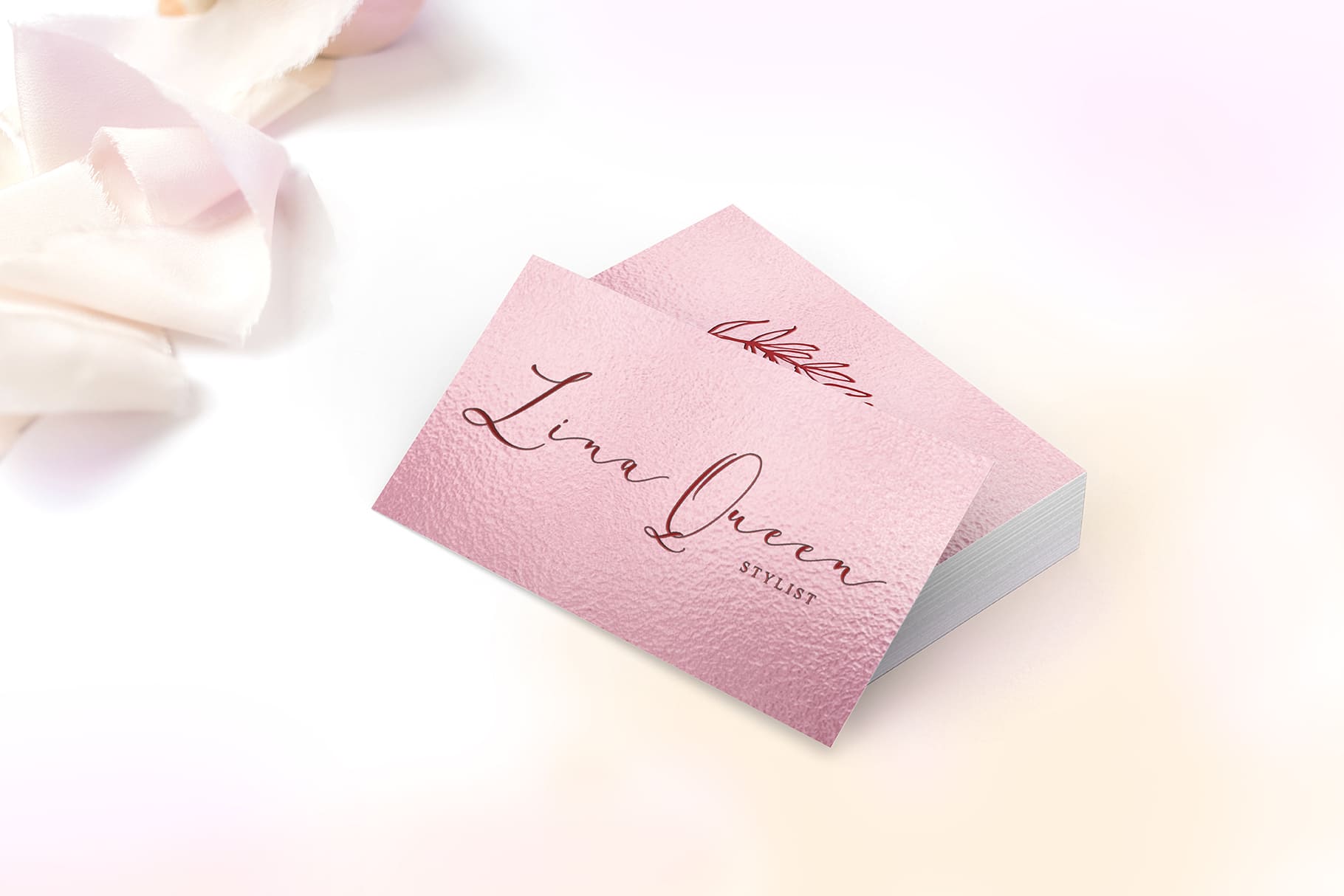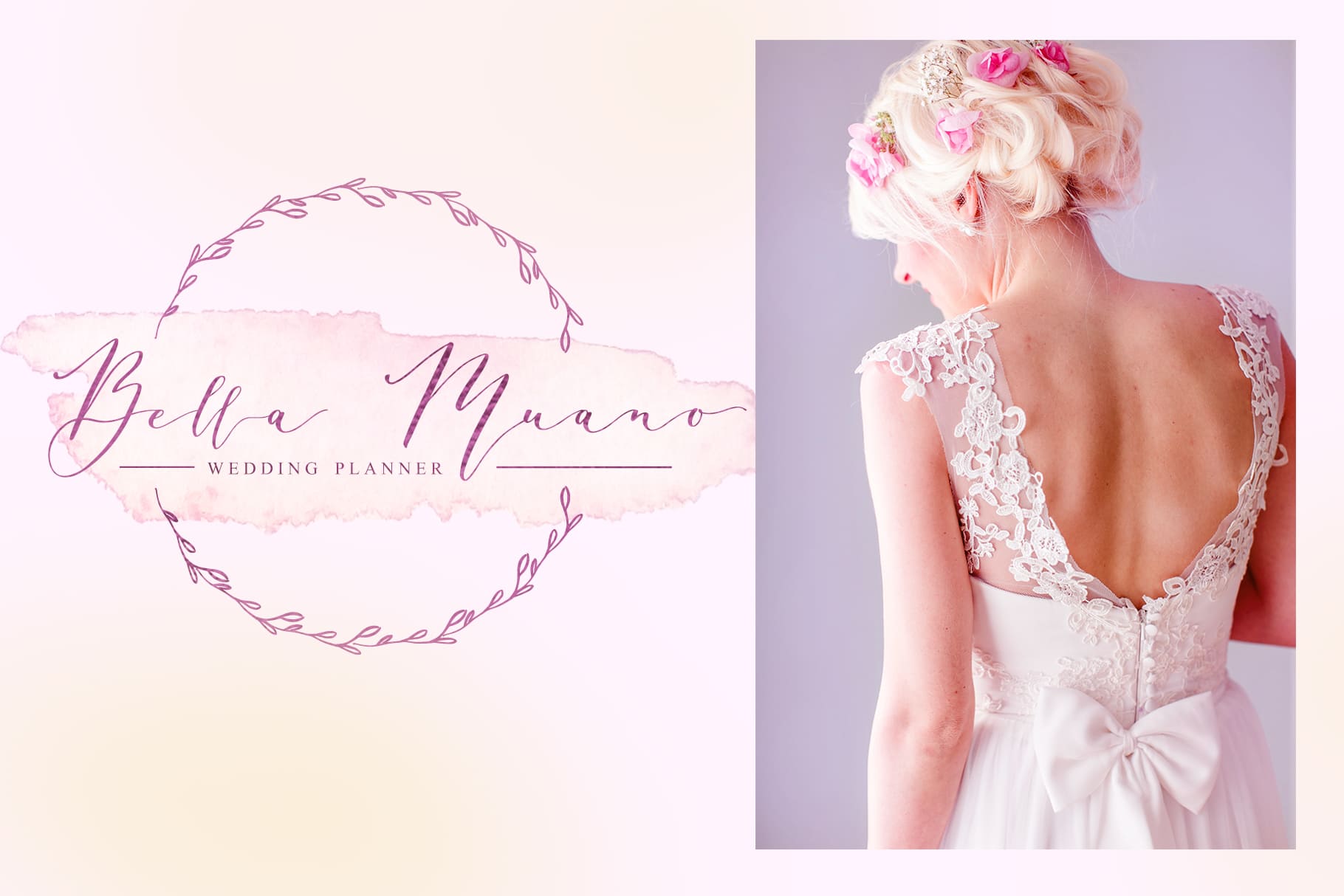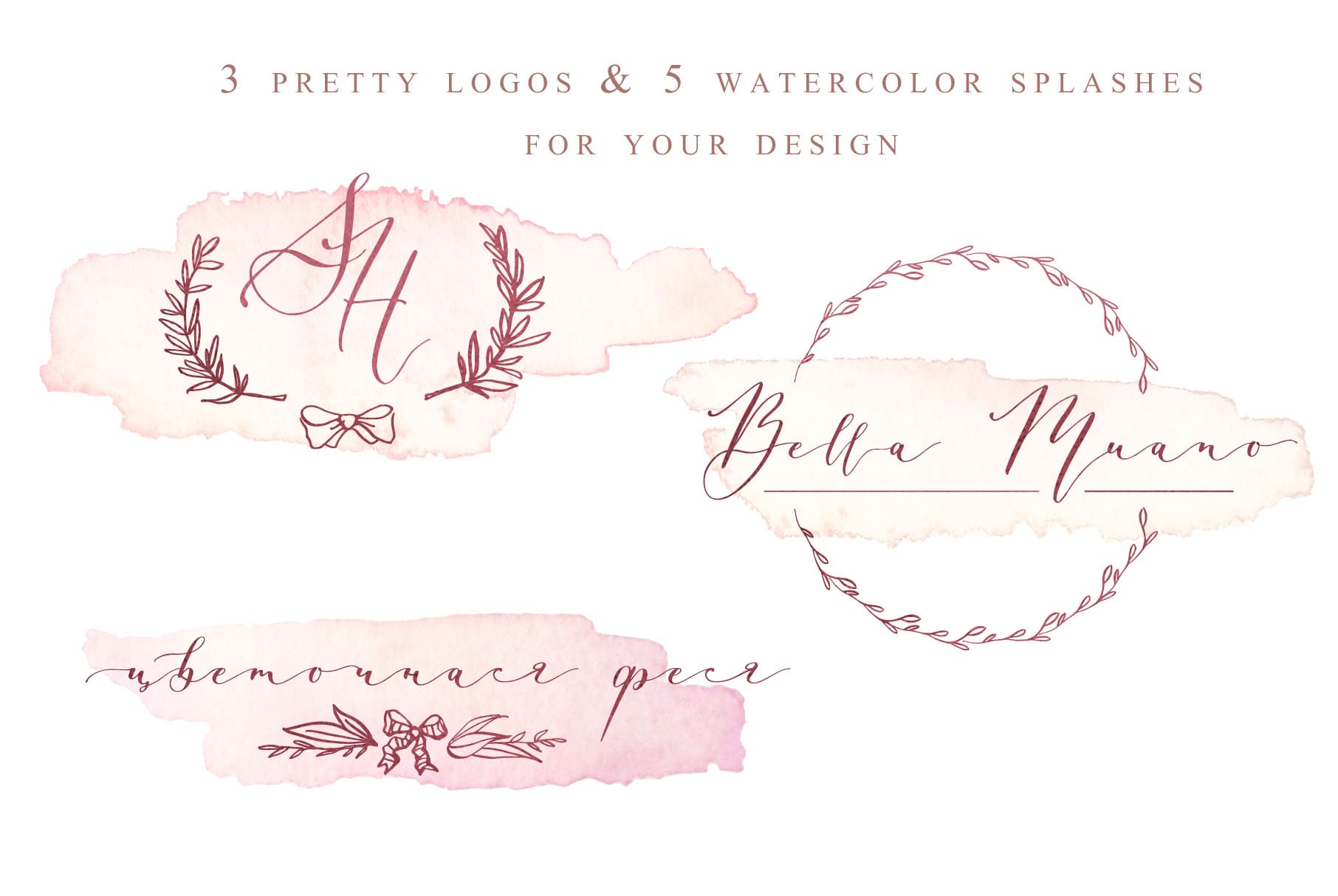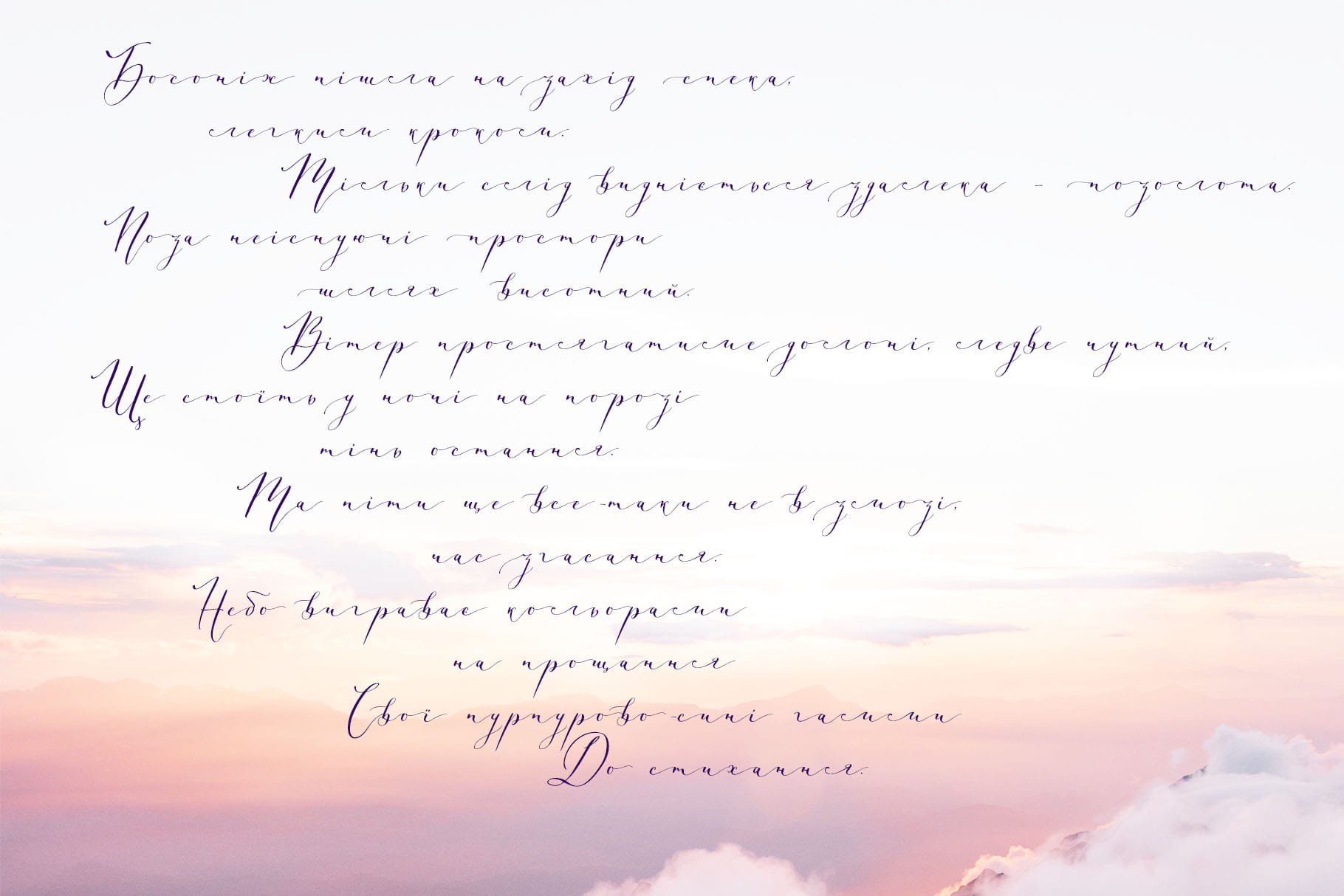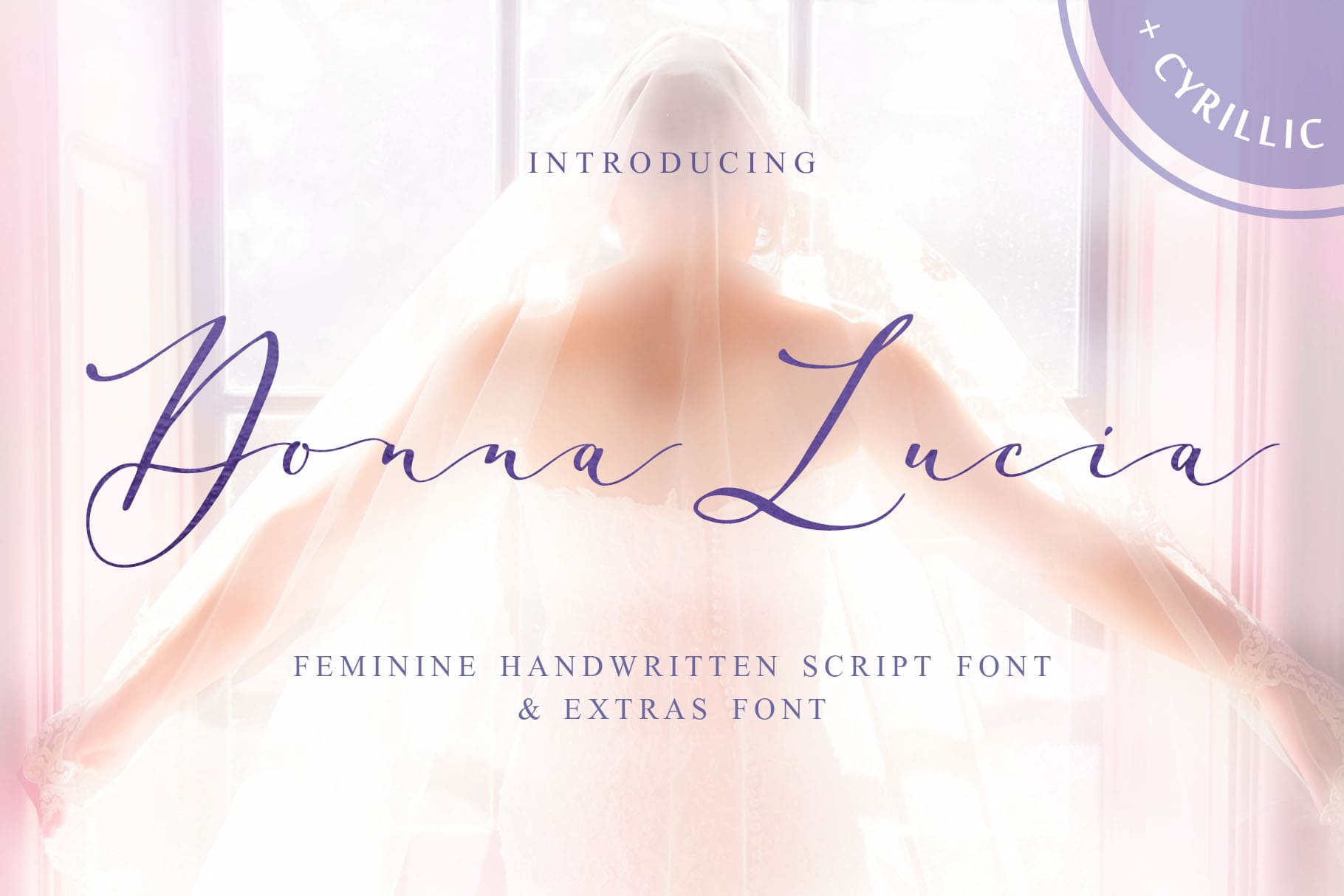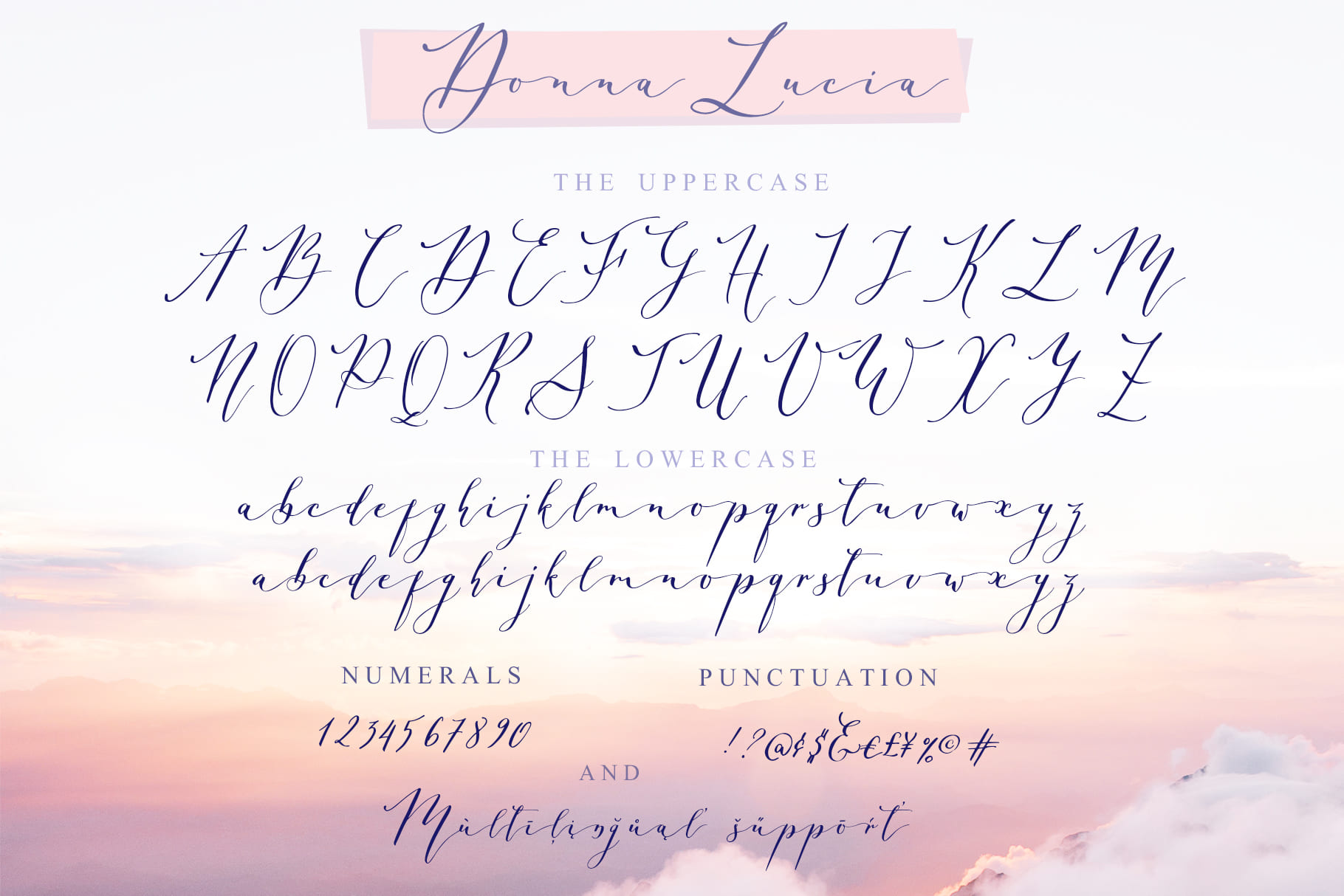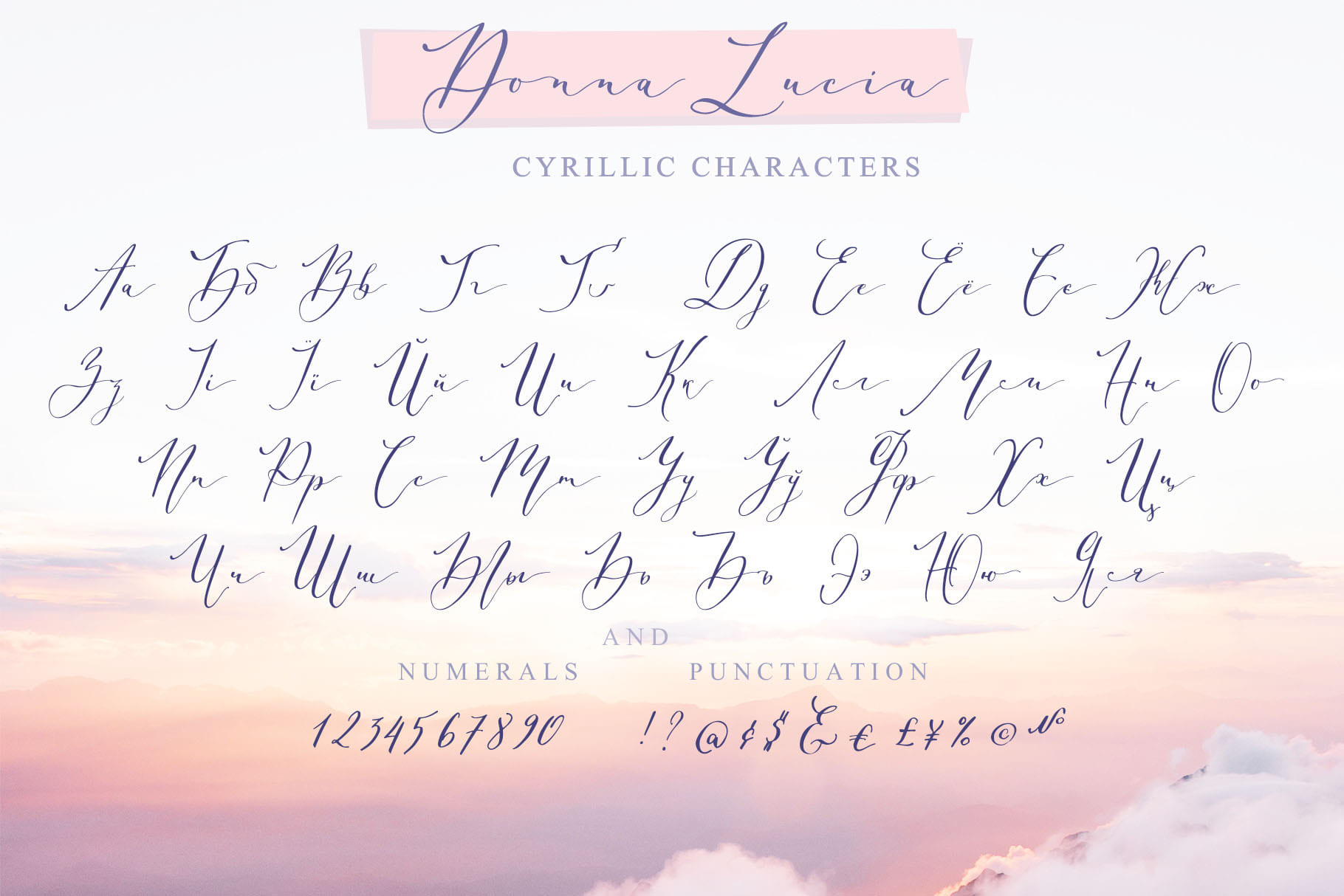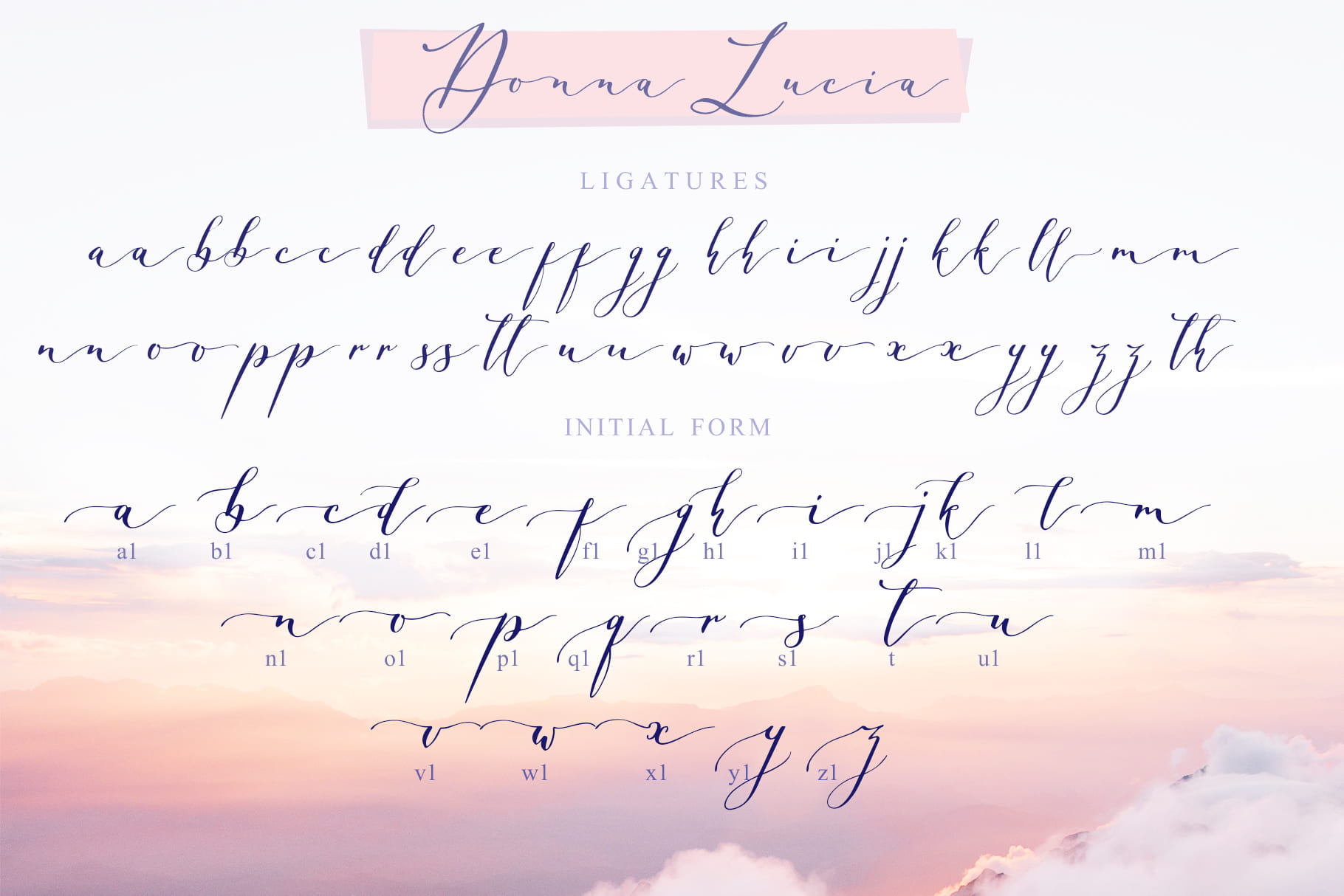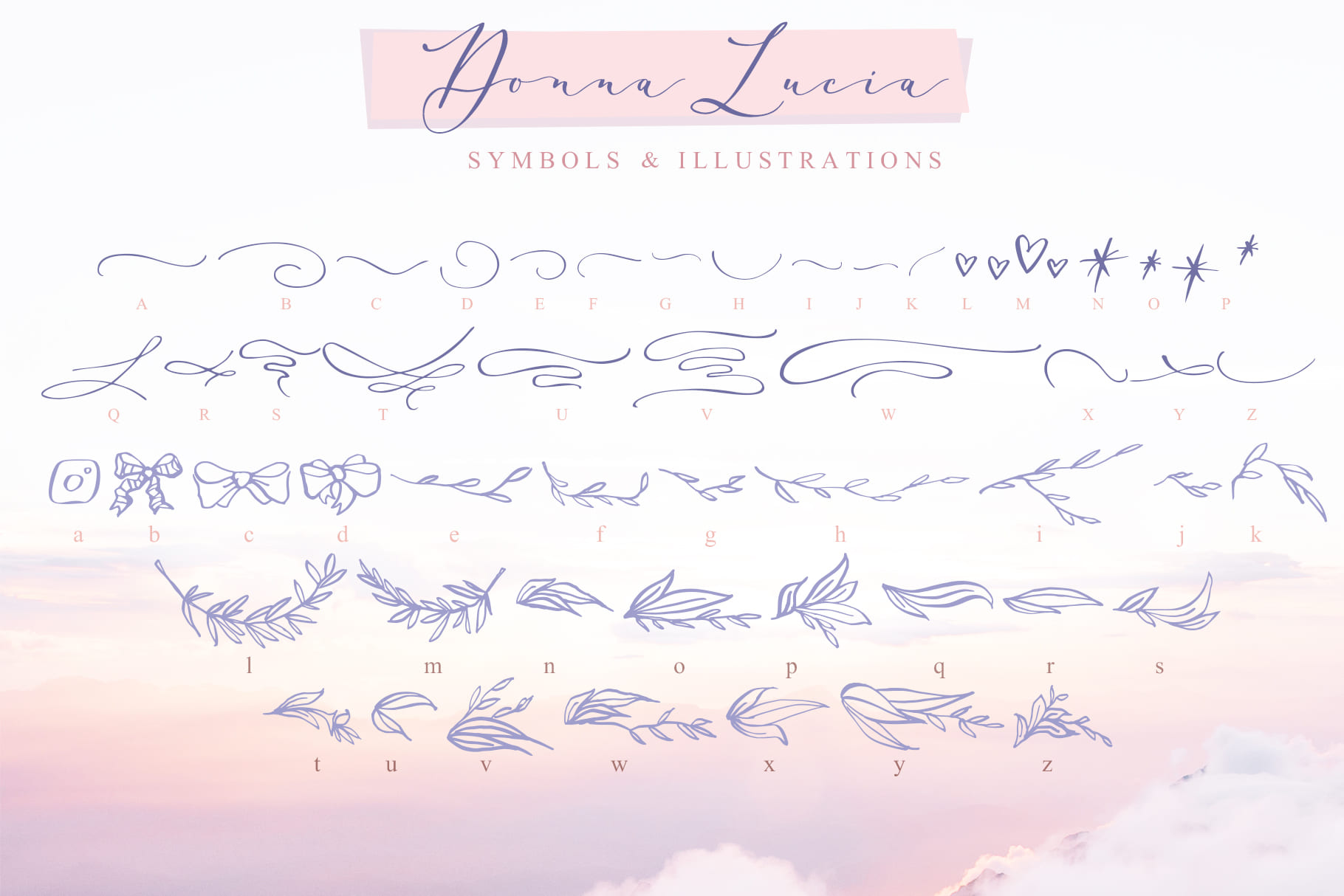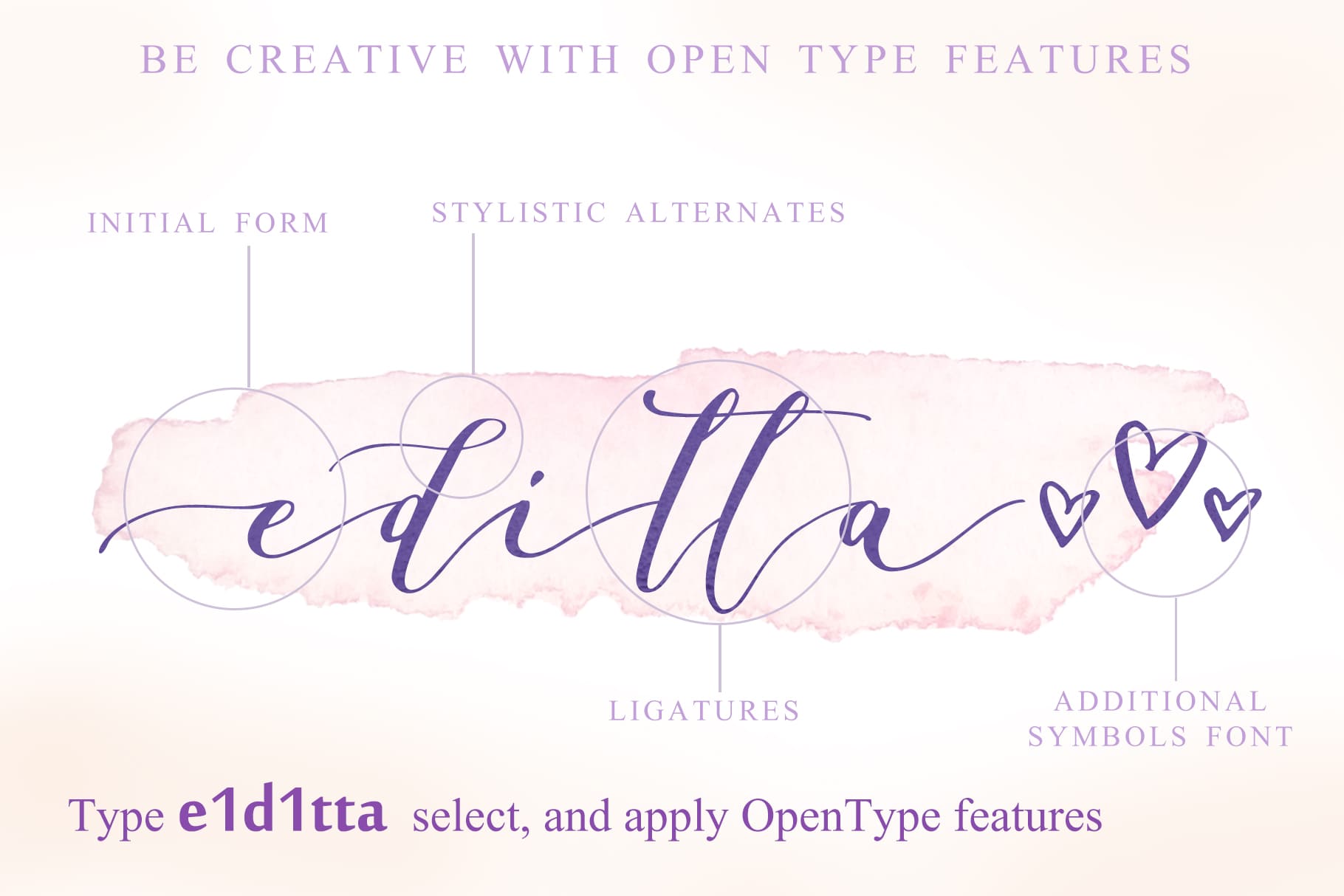
Donna Lucia Script Family (2 fonts)
Donna Lucia script is perfect for branding, logos, wedding stationery, social media, packaging, and other projects that require an elegant touch.
Donna Lucia feminine font + Logos also includes Cyrillic glyphs.
Donna Lucia script contains a full set of uppercase letters and 3 full sets of lowercase letters, (standard, alternative, and initial form) and 27 ligatures - which can be used to create a handwritten calligraphy look. Donna Lucia Symbols is a font with over 52 hand-drawn elements, illustrations, and swashes and can help to make your design more original. Combine and arrange swashes and illustrations to create your own designs and make borders, frames, dividers, logos and more (just use A-Z and a-z keys in the included Donna Lucia Symbols font). A different symbol is assigned to every uppercase or lowercase standard character so you do not need graphics software just simply type the letter you need.
Multilingual Support for 31 languages:
Latin glyphs for Afrikaans, Albanian, Basque, Bosnian, Catalan, Danish, Dutch, English, Estonian, Faroese, Filipino, Finnish, French, Galician, Indonesian, Irish, Italian, Malay, Norwegian Bokmål, Portuguese, Slovenian, Spanish, Swahili, Swedish, Turkish, Welsh, Zulu. And Cyrillic glyphs support for Russian, Belorussian, Bulgarian and Ukrainian languages.